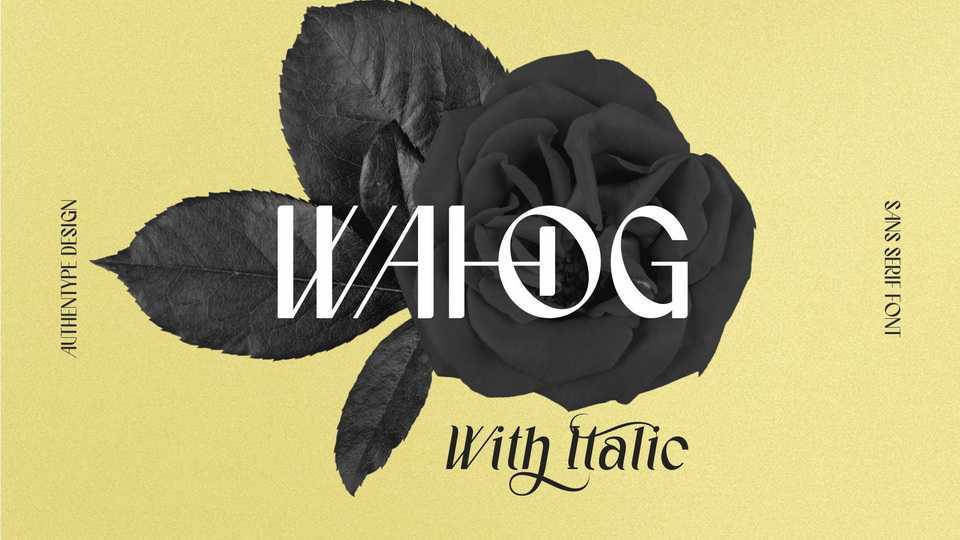
Download Wahog font, a simple sans serif typeface with a nice italic that has subtle contrast to make paragraph text easier to read but has a nice non-rigid glyph shape.
Designer: Authentype